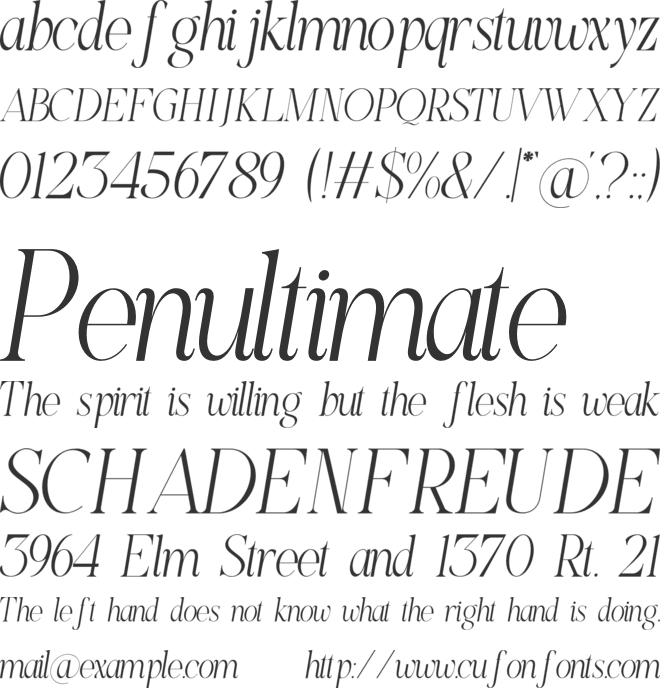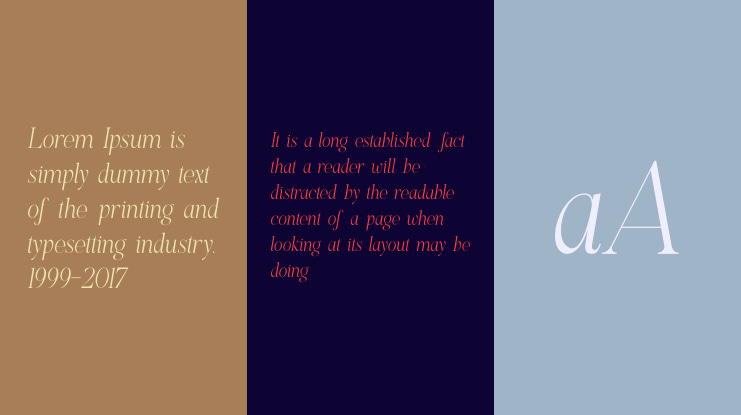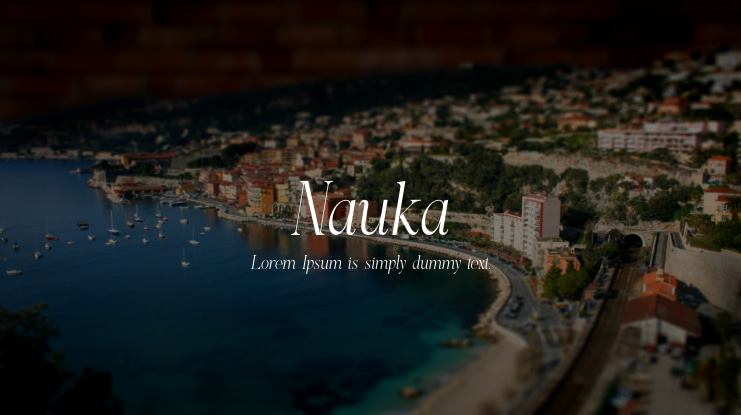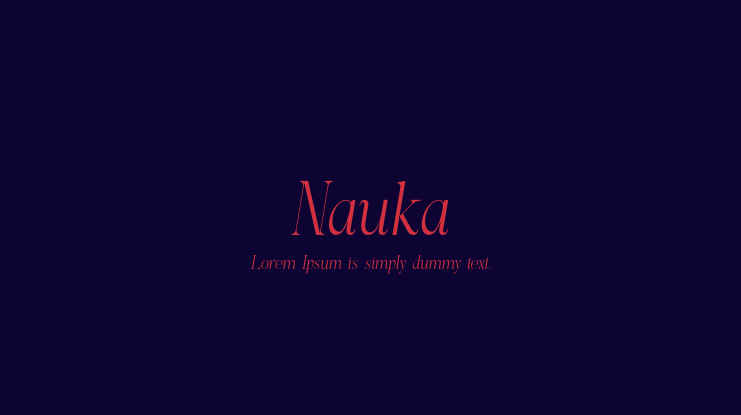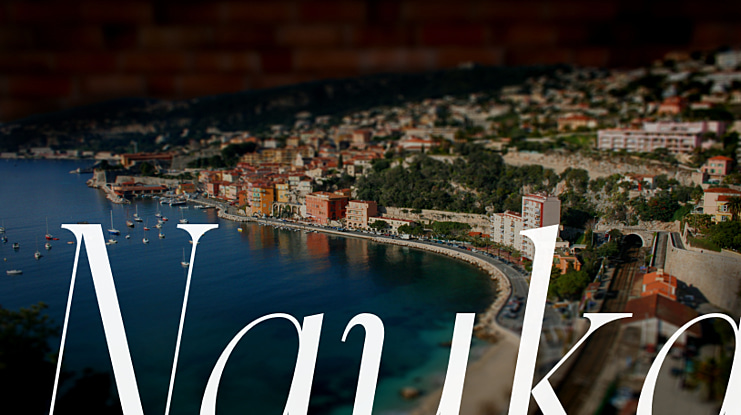
Nauka Font Family
Nauka Serif is a an elegant and smooth combine typeface regular and italic serif font. He has a beautiful character. It fits perfectly with invitation card designs, company logos, movie titles, movie names, business cards, book titles, brand names and various other designs. Nauka Serif is a subtle serif font that exudes sophistication and elegance. Its stylish alternations and ligatures make this font the perfect partner for any project.